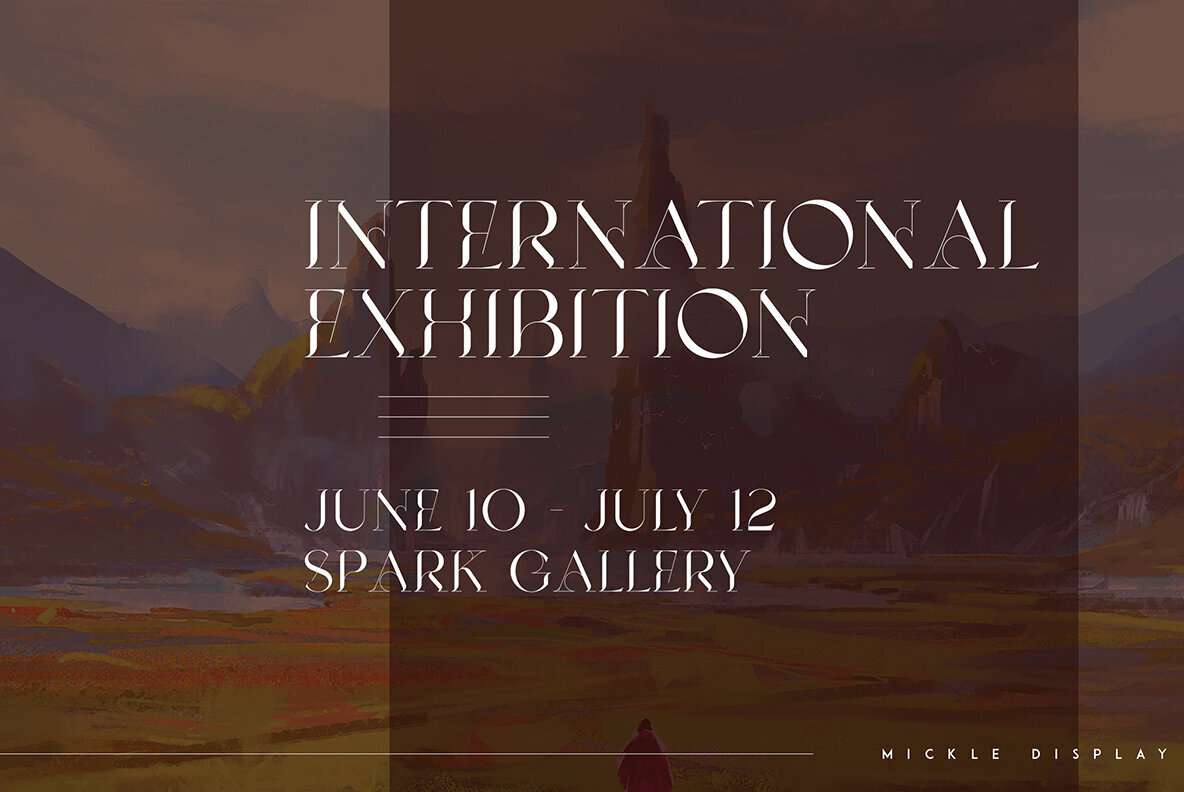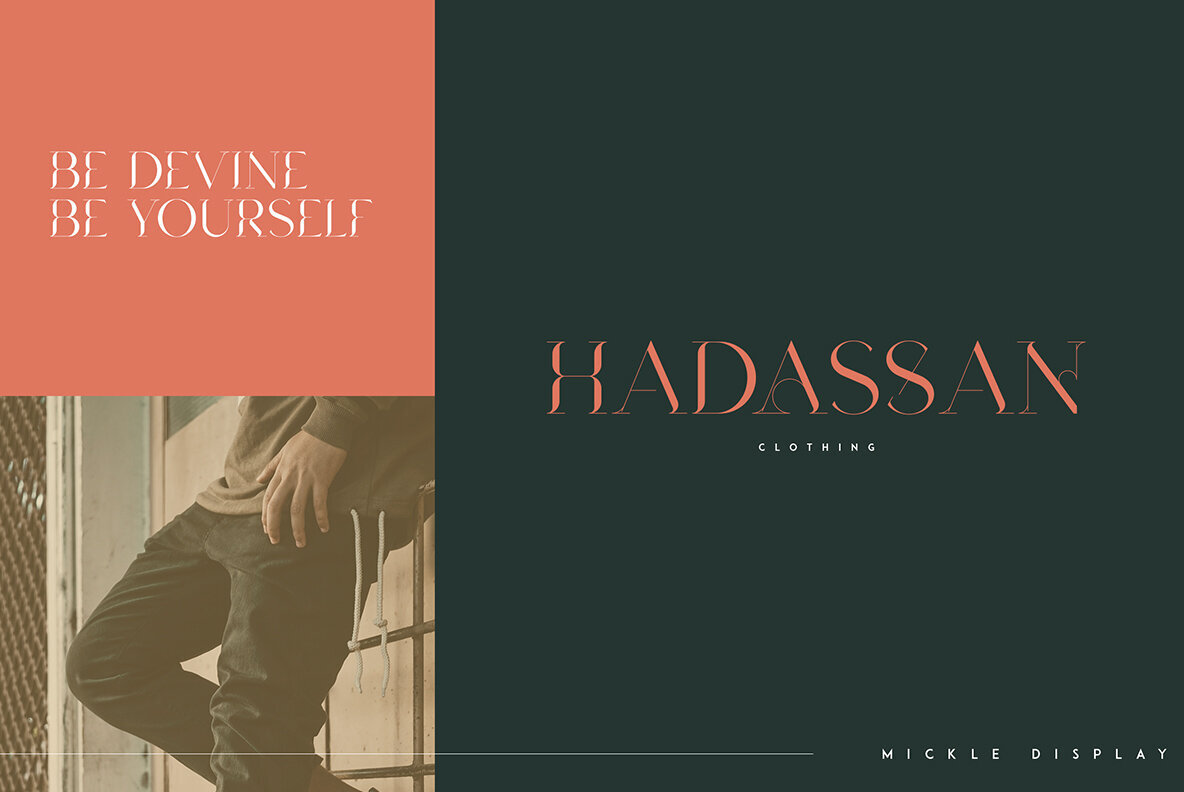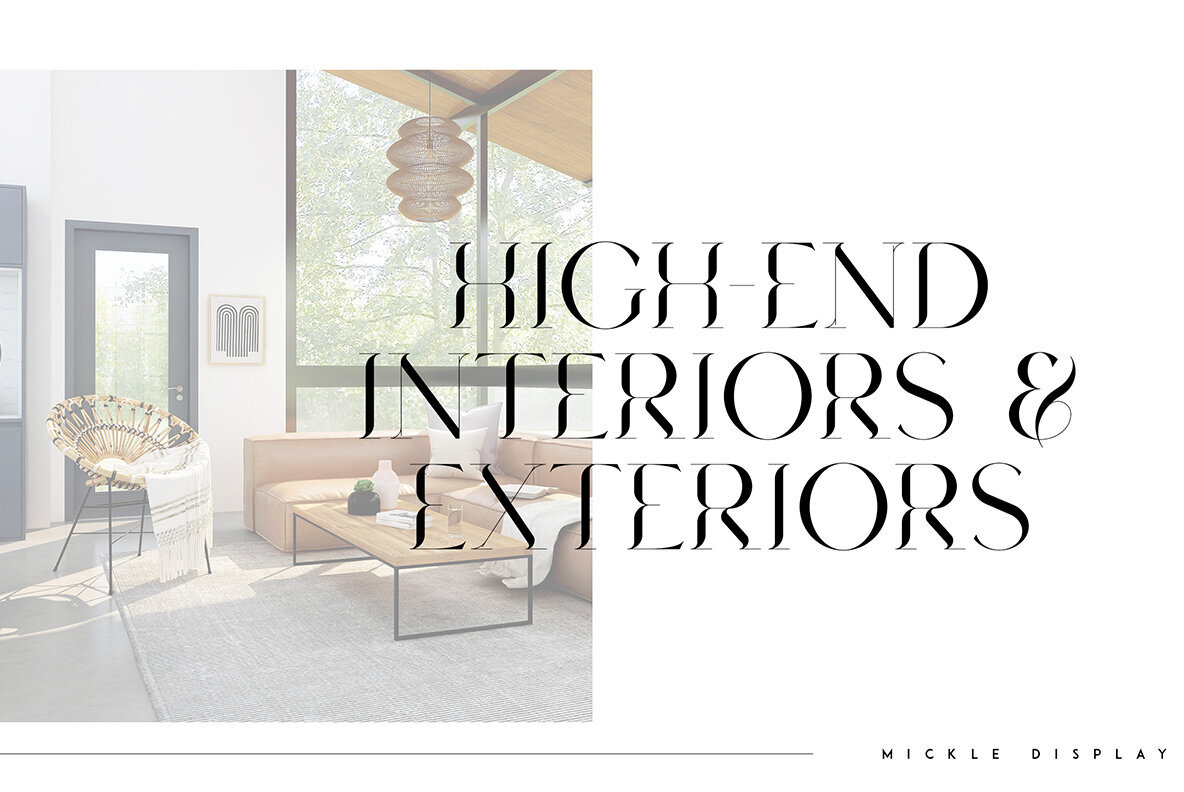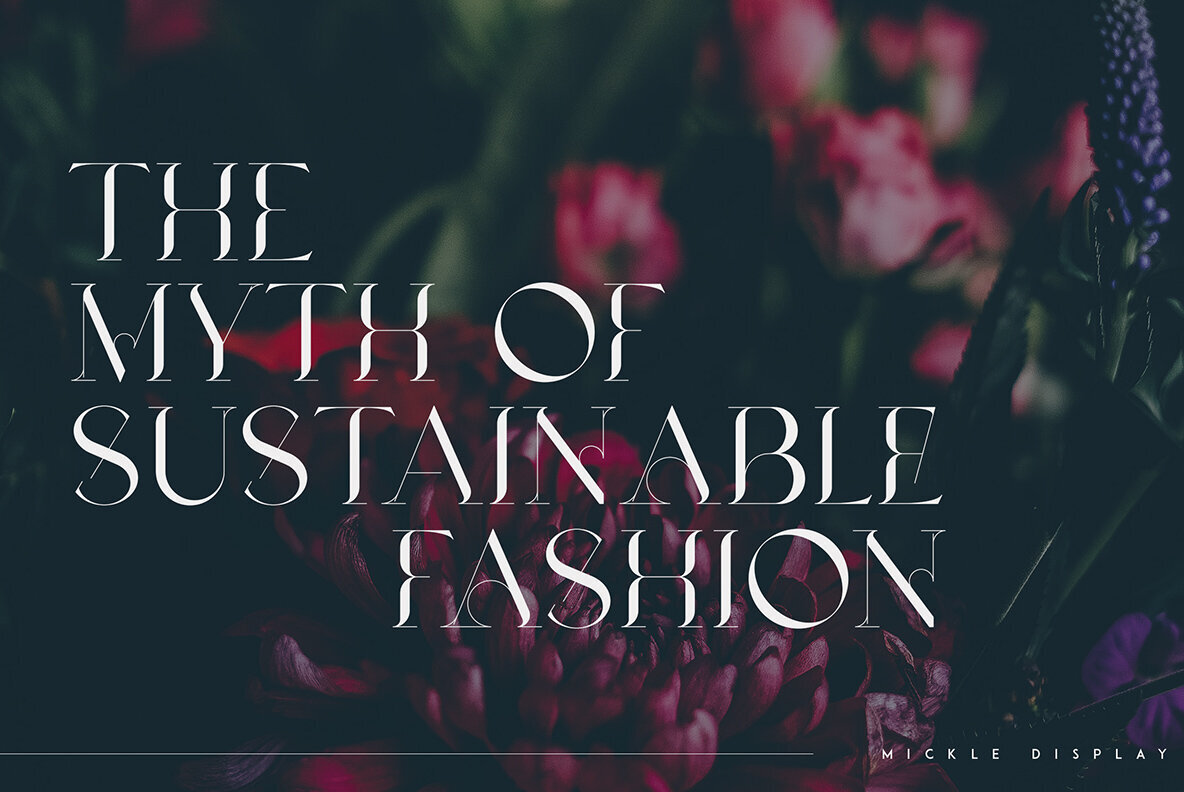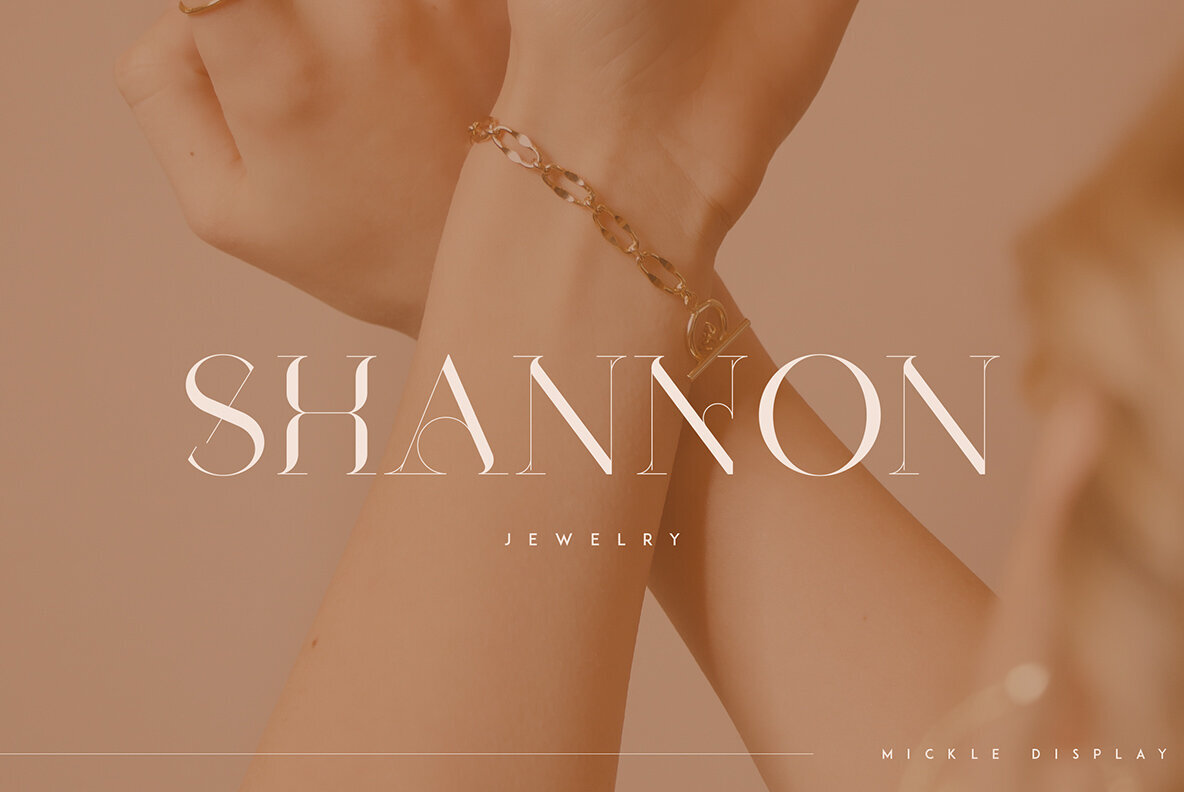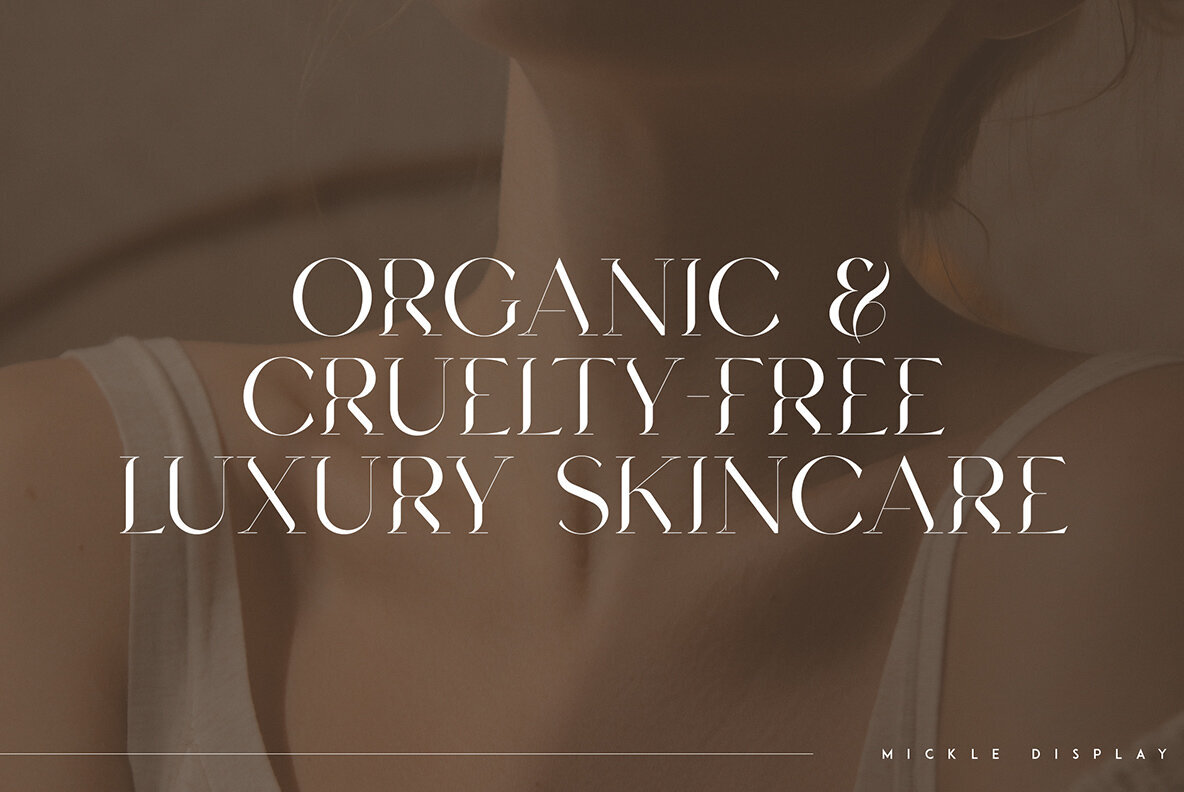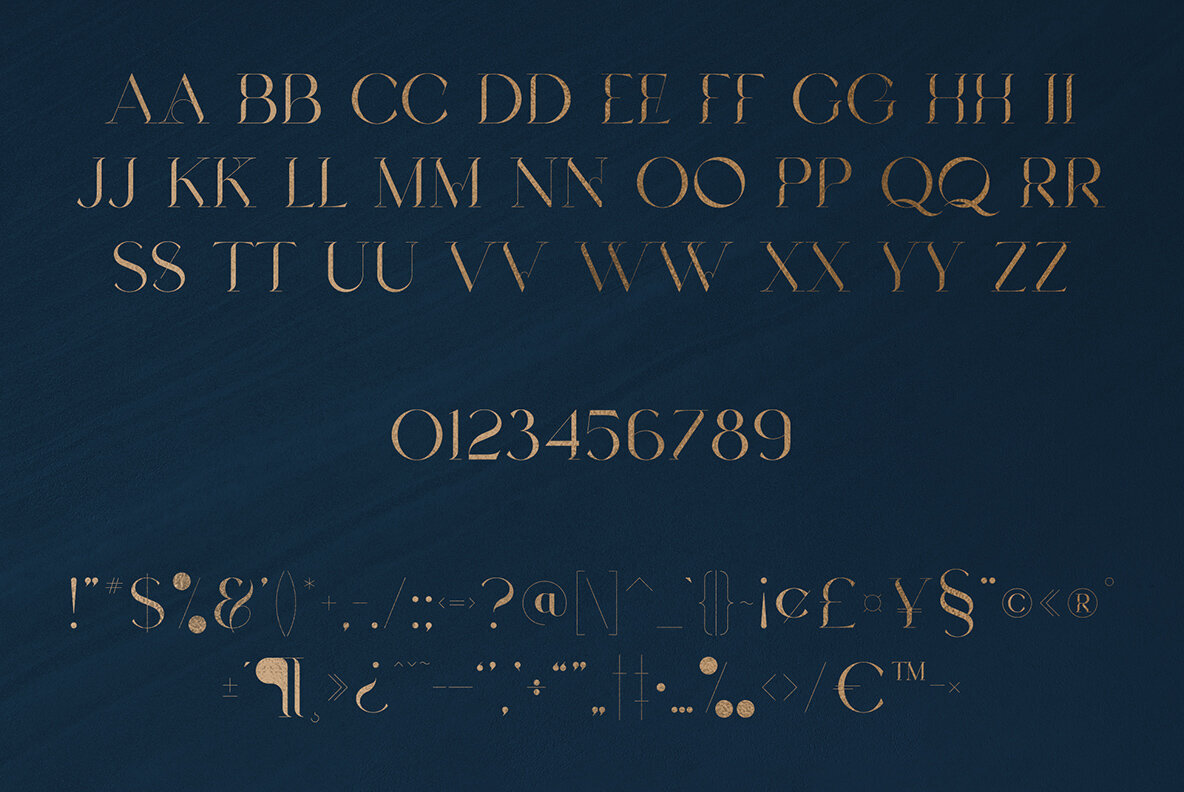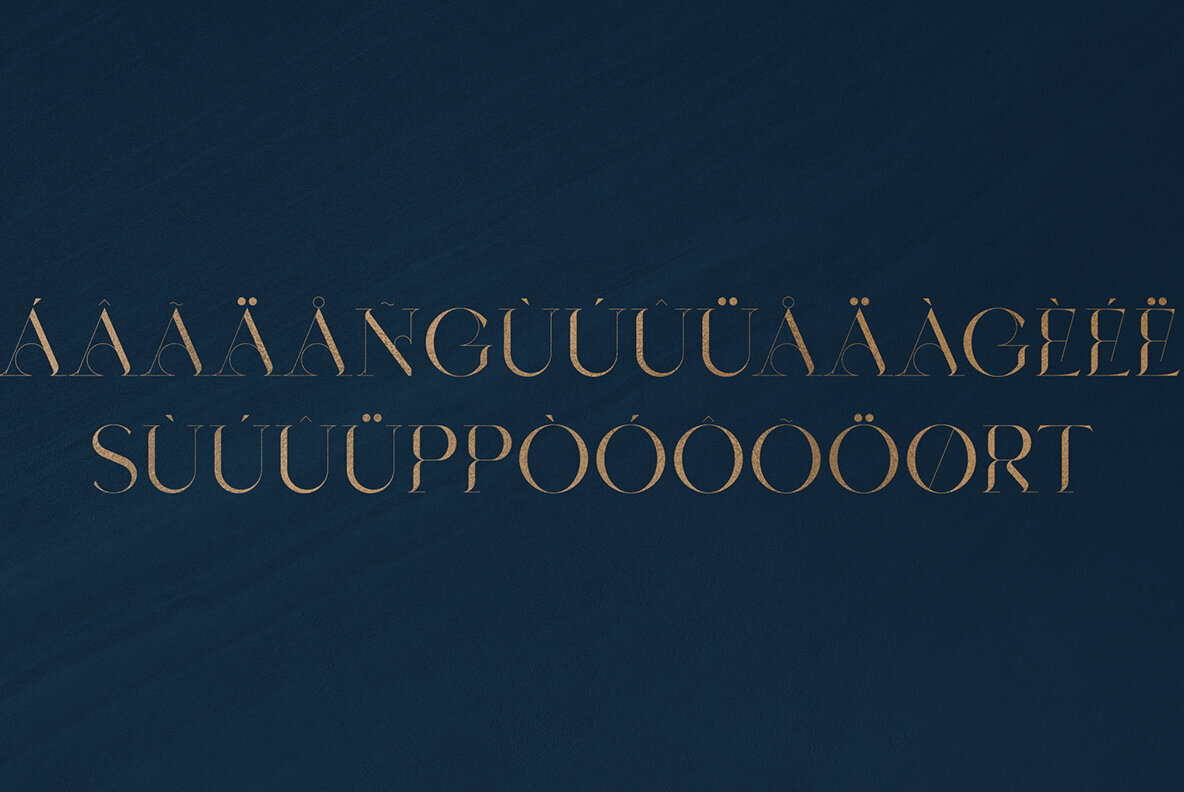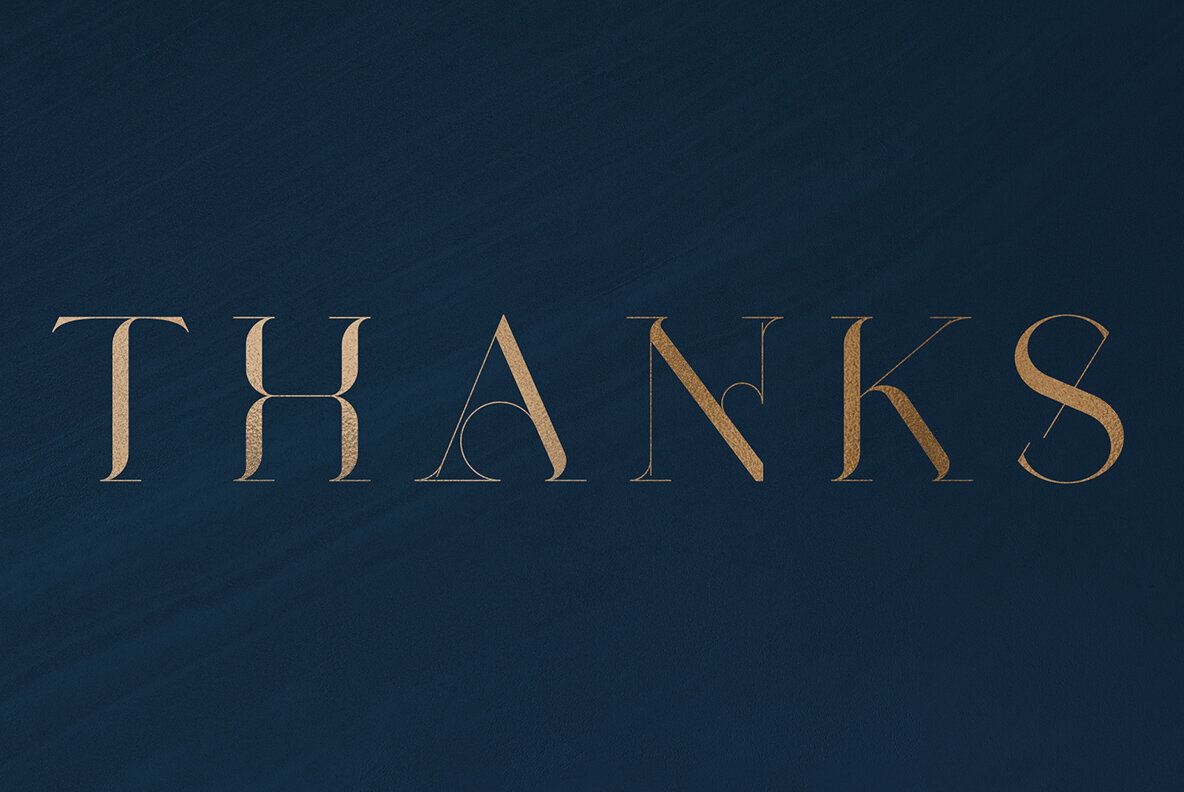
Mickle Font
Mickle Regular
The Mickle display font blends creativity and functionality, offering an expansive character set with multilingual support. It is adaptable to both large and small sizes, making it an excellent choice for various design endeavors. From branding projects to homeware designs, Mickle effortlessly complements visuals. It adds a stylish flair to product packaging, magazine headers, or text overlays on a broad spectrum of backgrounds.Mickle: A Creative Display Font for Modern Designs